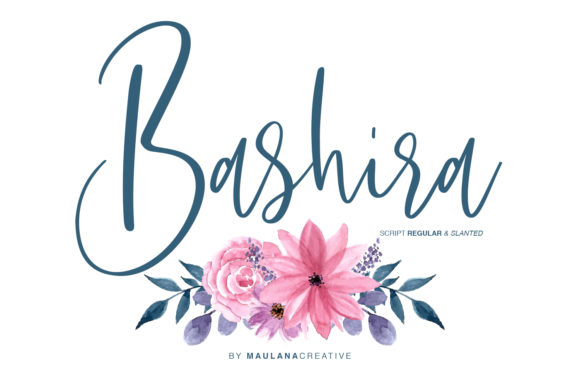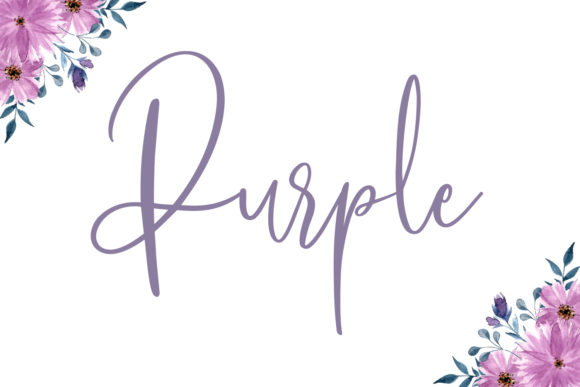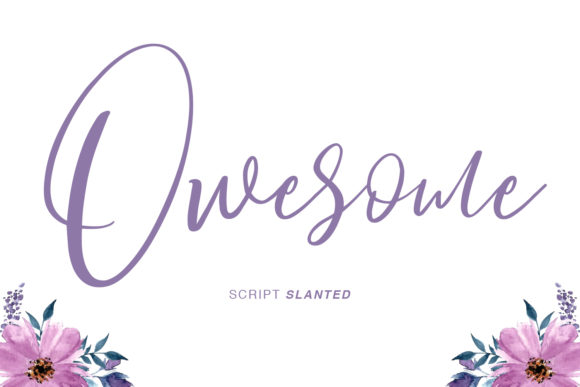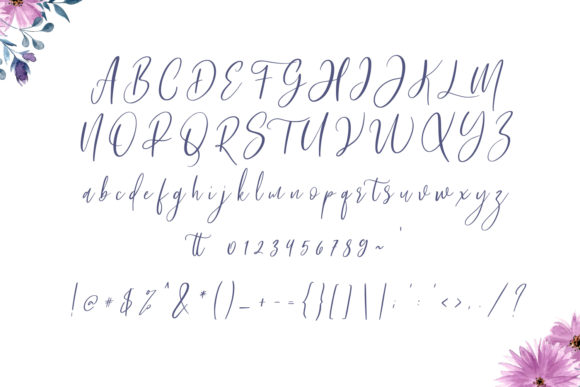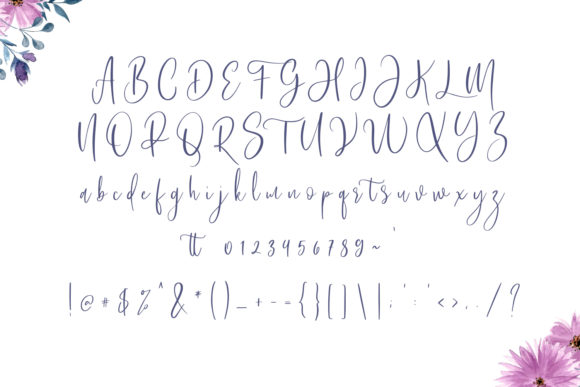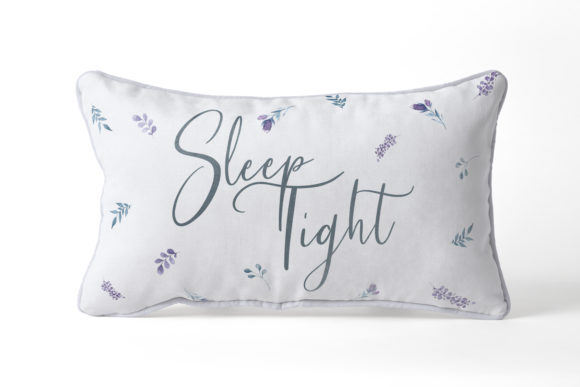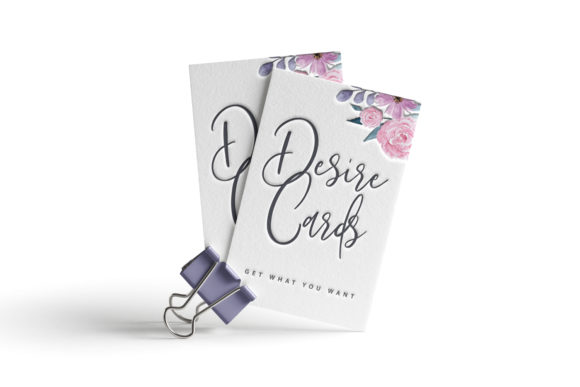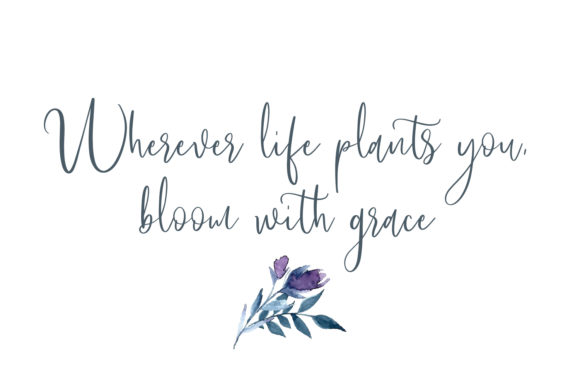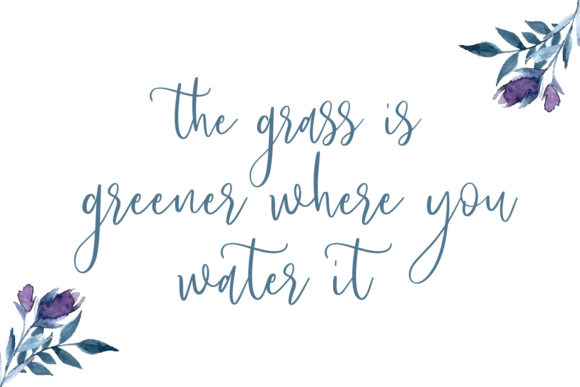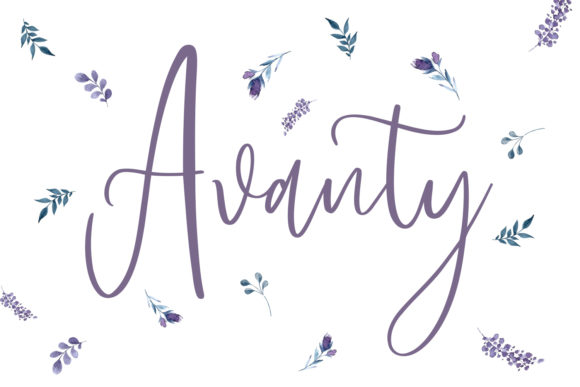
HomeScript FontsBashira Font Script Fonts Bashira Font FacebookXPinterestWhatsApp Bashira Font Poster 2 Bashira Font Poster 3 Bashira Font Poster 4 Bashira Font Poster 5 Bashira Font Poster 6 Bashira Font Poster 7 Bashira Font Poster 8 Bashira Font Poster 9 Bashira Font Poster 10 Bashira Font Poster 11 About Bashira Font Bashira is a romantic handwritten script font featuring delicate curves. Fall in love with its pretty flourishes! DOWNLOAD NOW People also explored Stick Font Emillio Font Feather Script Marshela Belovia Font Aloha Font Nexark Font Cowboy Doodles Creative Monday Font Aesthetic Vintage Font 325 0 TagsBashira Font Previous articleSchrader FontNext articleEmerisa Font LEAVE A REPLY Cancel reply Comment: Please enter your comment! Name:* Please enter your name here Email:* You have entered an incorrect email address! Please enter your email address here Website: Save my name, email, and website in this browser for the next time I comment. Personal Use Free Elevate Your Halloween Designs with 500 Free High-Quality PNG Clipart Files Personal Use Free Read more about this font Peachy Rose Personal Use Free Read more about this font Edo SZ Personal Use Free Read more about this font Orchid Personal Use Free Read more about this font BLOG Using Fonts in Digital Marketing: Tips to Strengthen Your Brand Identity In the realm of digital marketing, every visual element plays a crucial role in shaping a brand's identity, and fonts are no exception. The... Modern Sans-Serif Fonts That Brands Love in 2025 Top 10 Handwritten Fonts That Elevate Your Designs Top 7 Google Fonts Alternatives for Faster and Privacy-Friendly Web Design (2025)